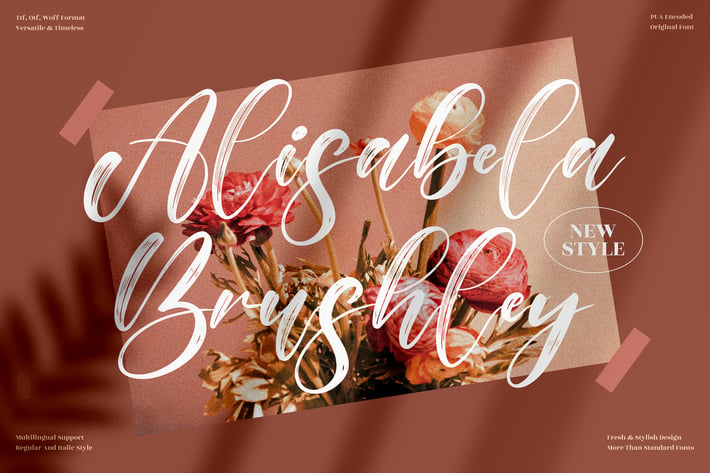
Alisabela Brushley Brush Script Font
Alisabela Brushley is a textured brush script font crafted with natural strokes and expressive details, giving your visuals a sophisticated handcrafted charm. Its flowing curves and stylish character shapes make it an ideal choice for branding, wedding stationery, fashion content, and any project that needs a beautifully organic touch.
Brush script style with handcrafted textured strokes
Smooth, natural flow for premium aesthetics
Includes regular & italic styles
Branding & logo design
Wedding invitations
Typography quotes
Social media graphics
Fashion & lifestyle content
Posters and editorial layouts
Personal creative projects
A bold handwritten script that instantly adds elegance, warmth, and artistic flair to any design.